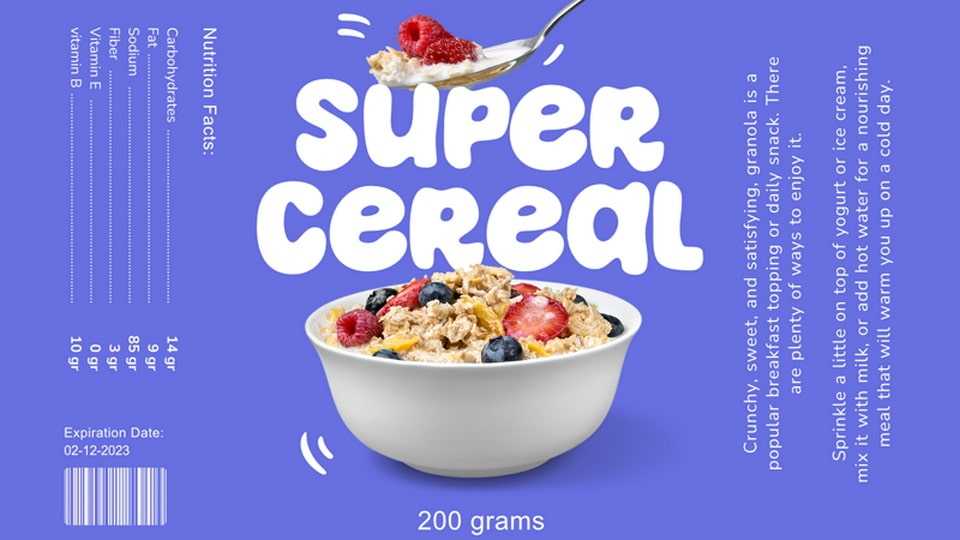
Download Super Cereal font, a smooth and sweet hand lettered typeface that will add a playful, natural touch to any projects. Handcrafted with care, Super Cereal font is well suited to create everything from comic books to packaging – all with an authentic feel.